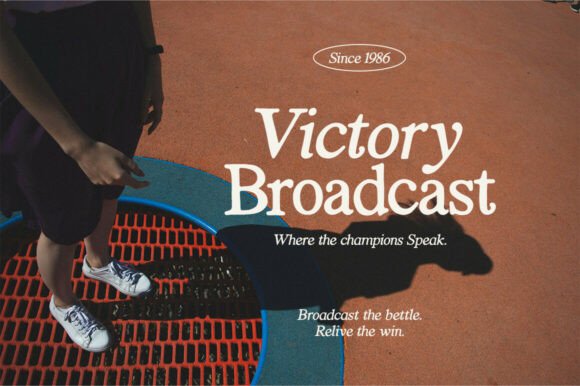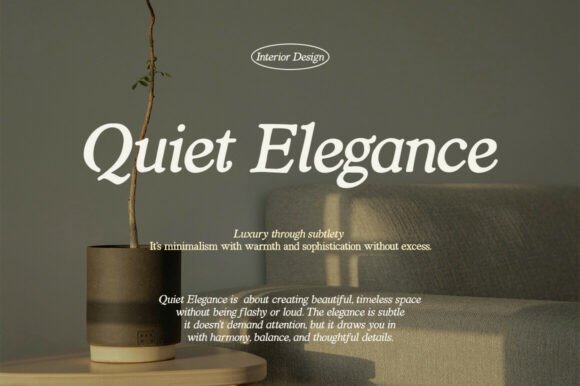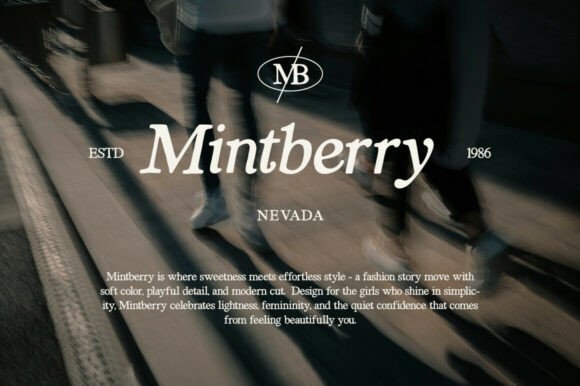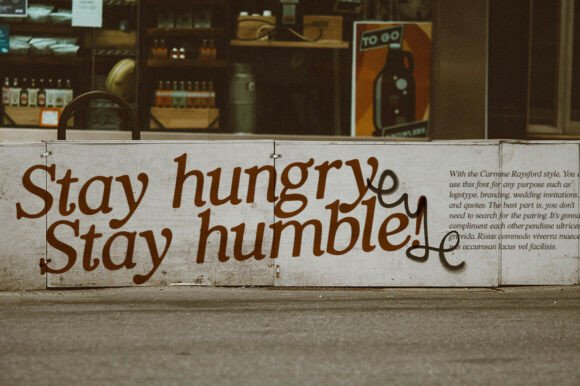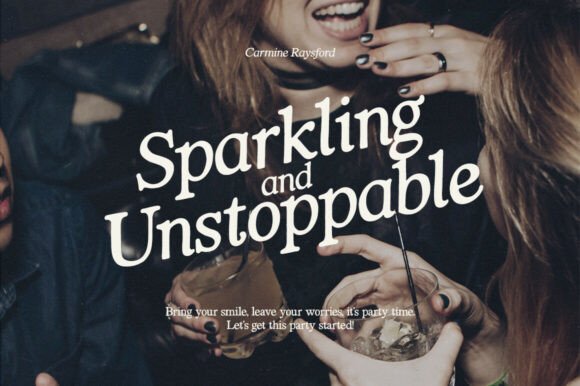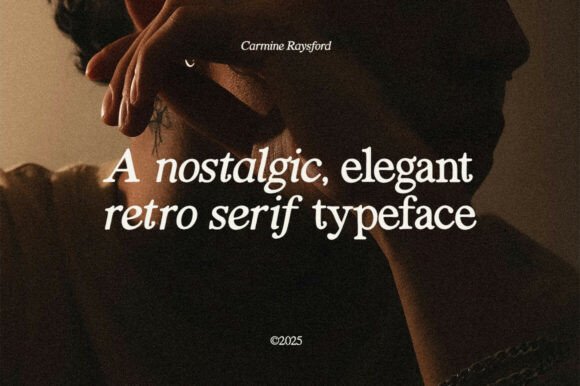
Step into the Golden Glow of Retro Design with Carmine Raysford Font
As a designer, I’ve had my fair share of late nights scouring font libraries, searching for that perfect typeface to bring a project to life. But it wasn’t until I stumbled upon a vintage-inspired design trend that I knew I had to create something special. And so, Carmine Raysford was born — a fresh take on the classic serifs that defined the 80s and 90s.
The Design Moment that Inspired Carmine Raysford
I recall working on a project for a client who wanted a logo that screamed retro chic. I spent hours browsing through font libraries, but nothing seemed quite right. That’s when I started thinking about the iconic typography of the 80s and 90s — the era of bold serifs, elegant curves, and a dash of playfulness. I knew I had to create a font that captured the essence of that era, and Carmine Raysford was the result.
A Fresh Take on Classic Serifs
Carmine Raysford is more than just a font — it’s a design statement. This elegant serif blends upper and lowercase characters in a design that feels both familiar and refined. Whether used as a bold display font for logos, headlines, or quotes — or as stylish body text — Carmine Raysford delivers timeless sophistication with a modern twist.
Honest Review: What I Love and What I Don’t
• ✅ Elegant serif design that’s perfect for retro-inspired projects
• ✅ Smooth, refined lines that work beautifully for body text
• ✅ Extensive OpenType features, including glyphs and stylistic alternates
• 🤔 Limited availability of condensed or expanded styles
• ⚠️ Not ideal for very large or very small font sizes (works best between 10-48pt)
Carmine Raysford was inspired by the iconic typography of the 80s and 90s. I drew inspiration from classic serifs, elegant curves, and a dash of playfulness. The result is a font that’s both nostalgic and modern — perfect for designers who want to add a touch of retro chic to their projects.
Q: What inspired you to create Carmine Raysford?
A: I was inspired by the iconic typography of the 80s and 90s, and I wanted to create a font that captured the essence of that era.
Q: Is Carmine Raysford suitable for body text?
A: Yes, Carmine Raysford is highly legible and works beautifully for body text, especially at font sizes between 10-14pt.
Q: Does Carmine Raysford come with any OpenType features?
A: Yes, Carmine Raysford includes a range of OpenType features, including glyphs, stylistic alternates, and ligatures.